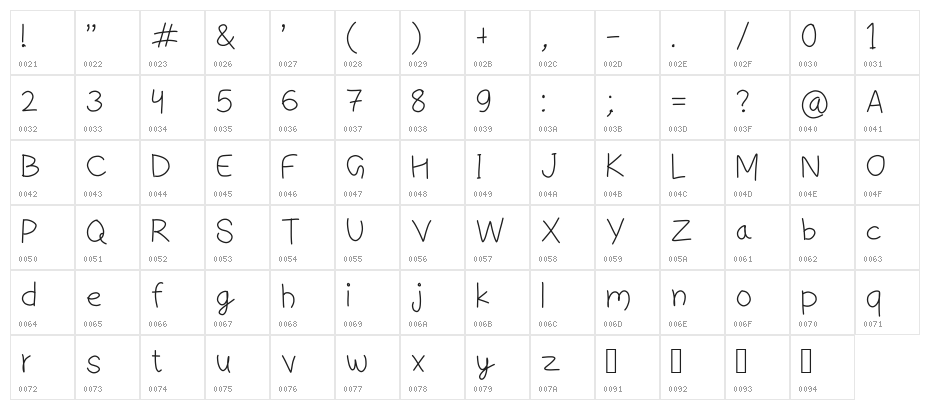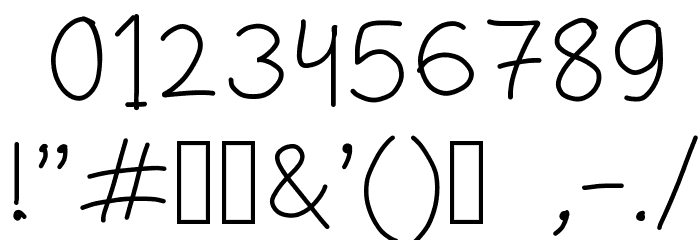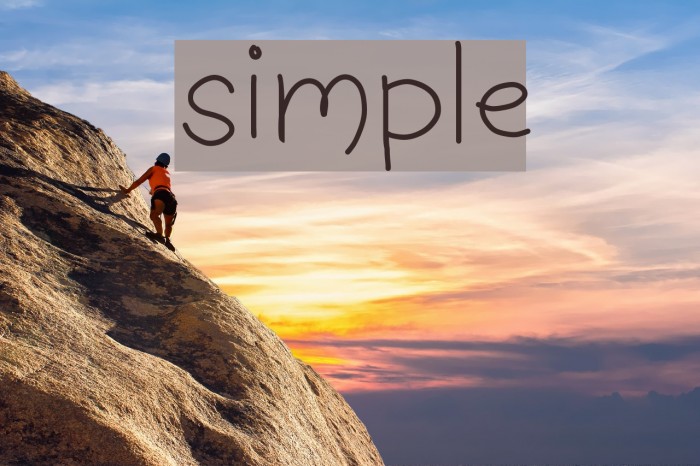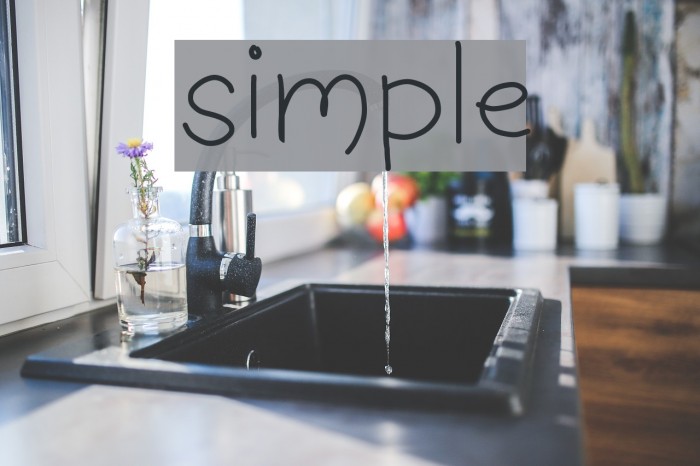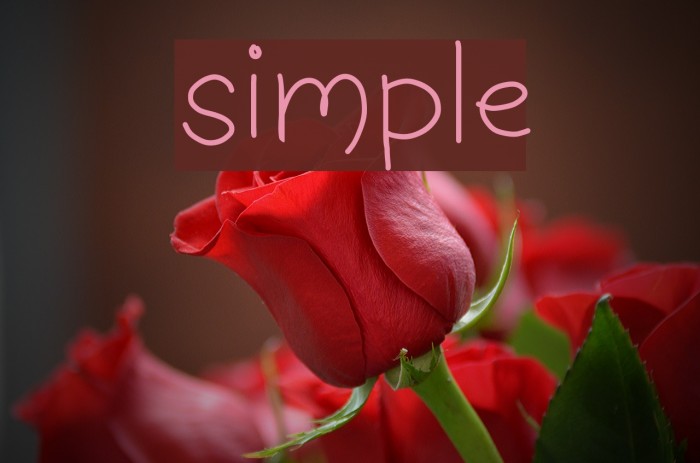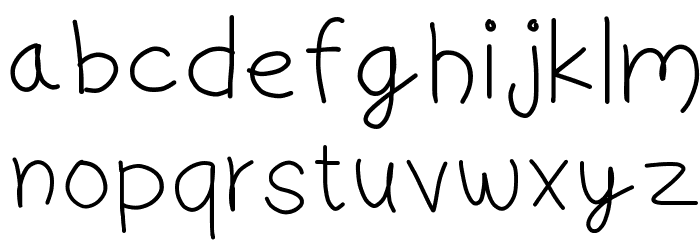
simple Font
simple Description
This font features a playful and casual handwritten style, characterized by its smooth, rounded strokes and slightly irregular letterforms. The uppercase and lowercase letters maintain a consistent flow, giving it a friendly and approachable appearance. The numerals and special characters are designed to match the overall aesthetic, ensuring a cohesive look across all text. The font's simplicity and charm make it suitable for informal and creative projects, where a personal touch is desired.
| Overall Style | Casual |
| Use Case | Headlines, Informal text, Creative projects |
| Proposed Projects | Ideal for greeting cards, children's books, personal blogs, and creative branding projects. |